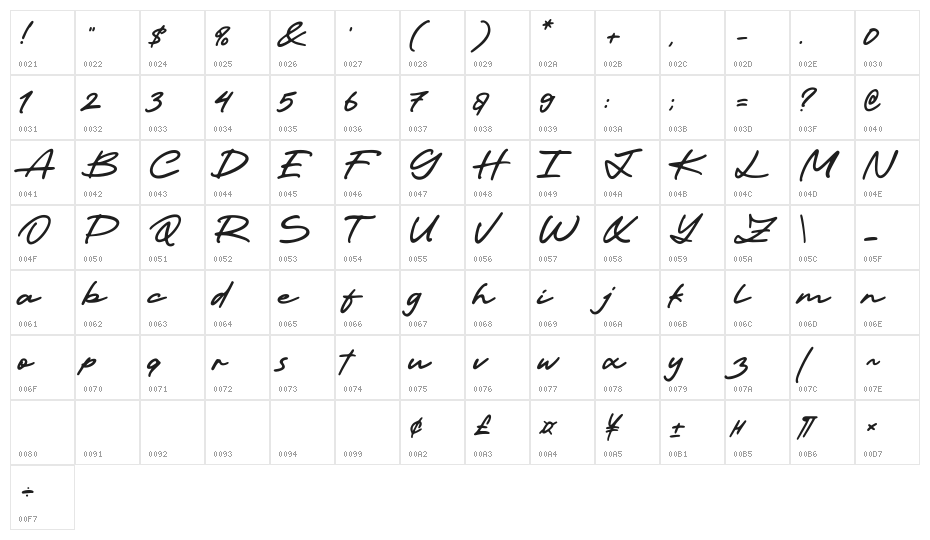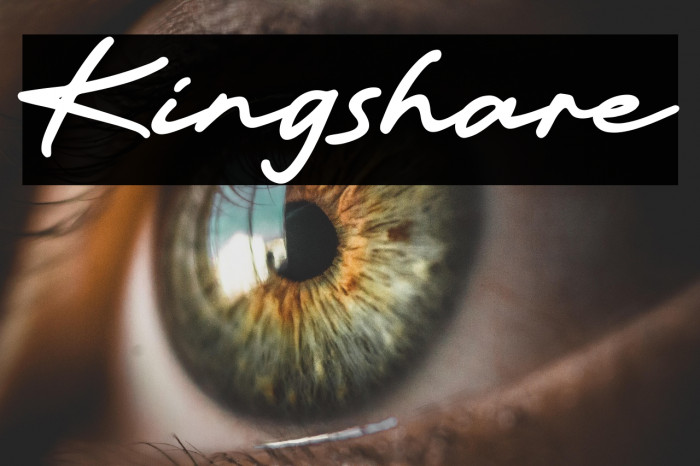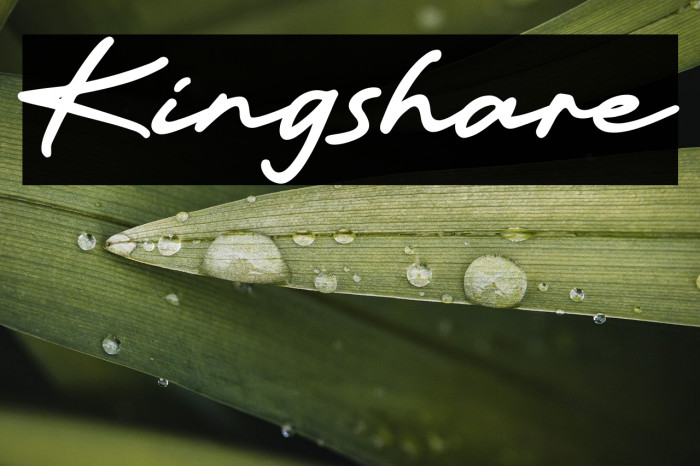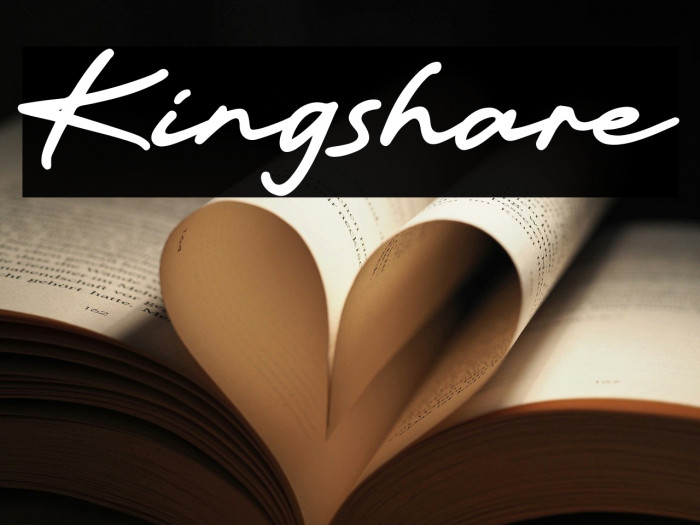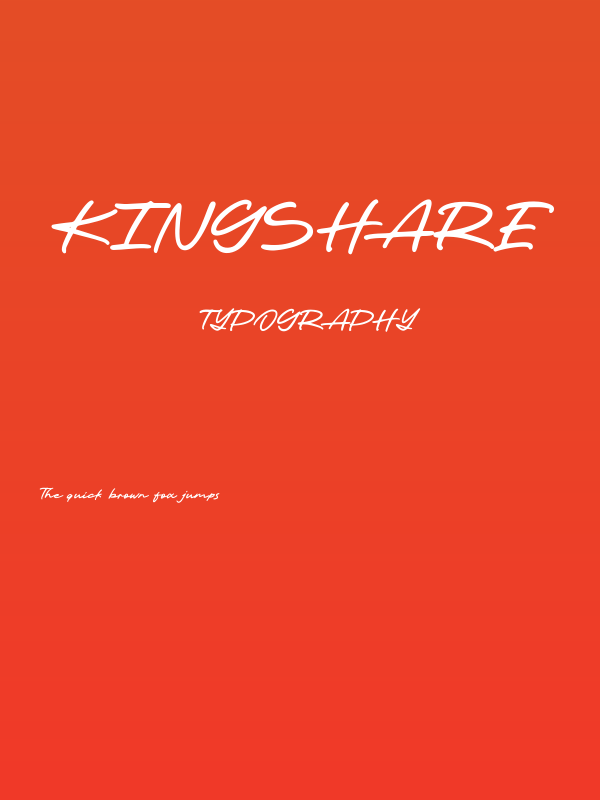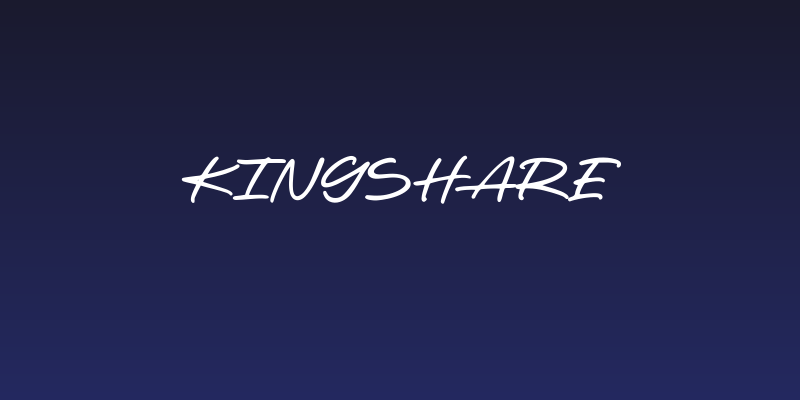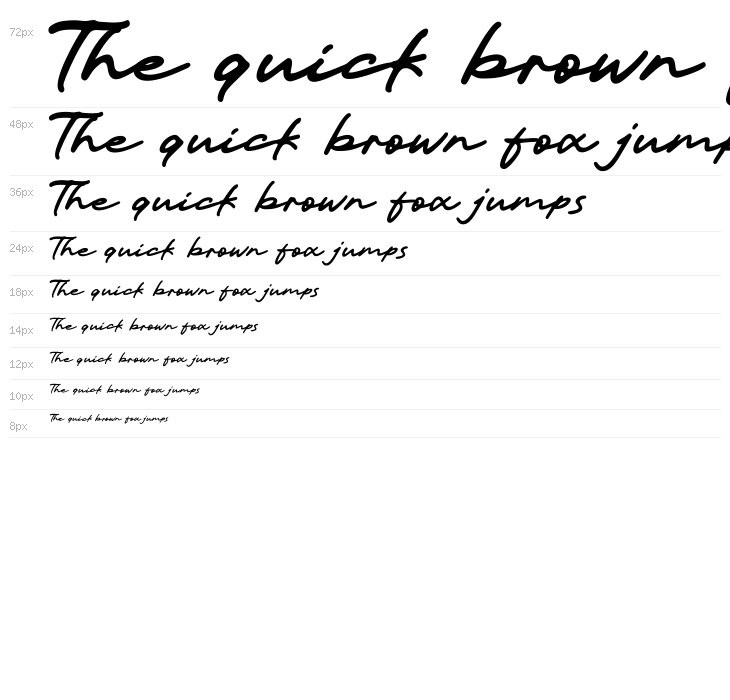
Kingshare Font
Kingshare Description
This font exudes a dynamic and energetic feel with its handwritten style, characterized by fluid and connected strokes. The letters are slightly slanted, giving a sense of motion and informality. The uppercase and lowercase characters maintain a consistent flow, while the numerals and special characters integrate seamlessly into the overall design. The font's organic and personal touch makes it ideal for projects that require a human element or a casual, friendly tone.
| Overall Style | Casual, Energetic |
| Use Case | Logos, Invitations, Personal Branding |
| Proposed Projects | Ideal for personal branding, greeting cards, invitations, and creative projects that require a personal touch. |